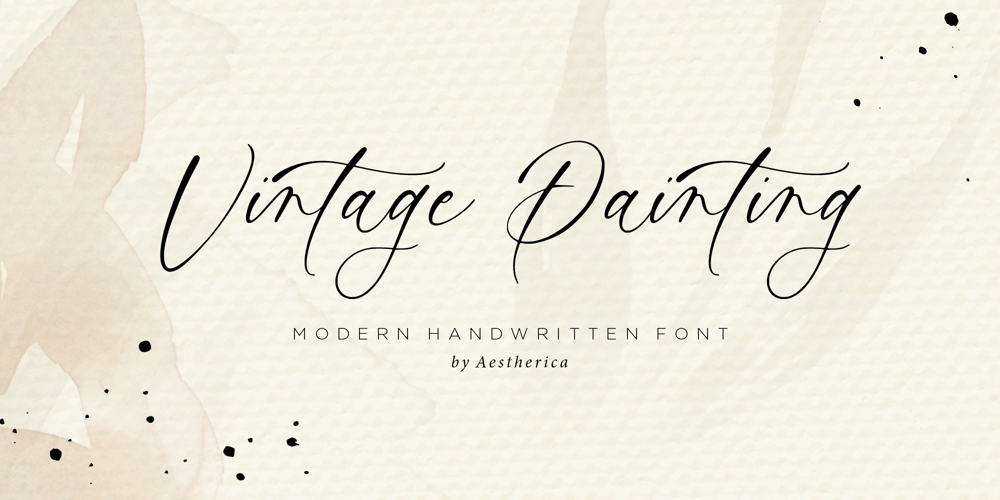
Vintage Painting Font Family was designed by Muhammad Fathurrohman and published by Aestherica Studio. Vintage Painting contains 1 styles and family package options. Introducing the new Handwritten Script Font by Aestherica Studio.Proudly Present, Vintage Painting is perfect for product packaging, branding project, megazine, social media, wedding, or just used to express words above the background.This font includes multilingual support.Enjoy the font, feel free to comment or feedback, send me PM or email.